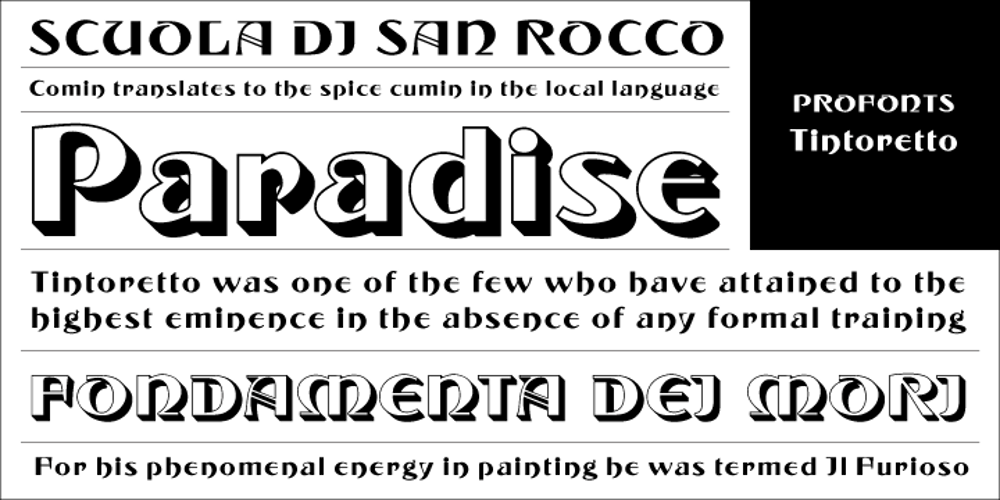
Tintoretto
Tintoretto font
Tintoretto Font Family was designed by Ralph M. Unger and published by profonts. Tintoretto contains 2 styles and family package options. Tinteretto is a very beautiful, decorative Art-d�co font which is ideal for ad design about fine arts events and the world of arts and crafts as well as in restaurants, bars and for food packaging. Tintoretto harmonizes well with serif and sans serif fonts created at the beginning of the last century. It contains character sets for West and Central European as well as for Romania and Turkey. When Unger started his work on Tintoretto, he had the splendid idea of adding a Fill version to the original 3D characters. Combining both fonts make it even stronger and more beautiful.How to combine both fonts in order to achieve a color fill effect: Type your word or phrase and do not make any changes to the spacing or kerning. Duplicate or copy the original and change it to the Fill version (font change). Apply a color to the copy and position it exactly behind the original. See and love the result.